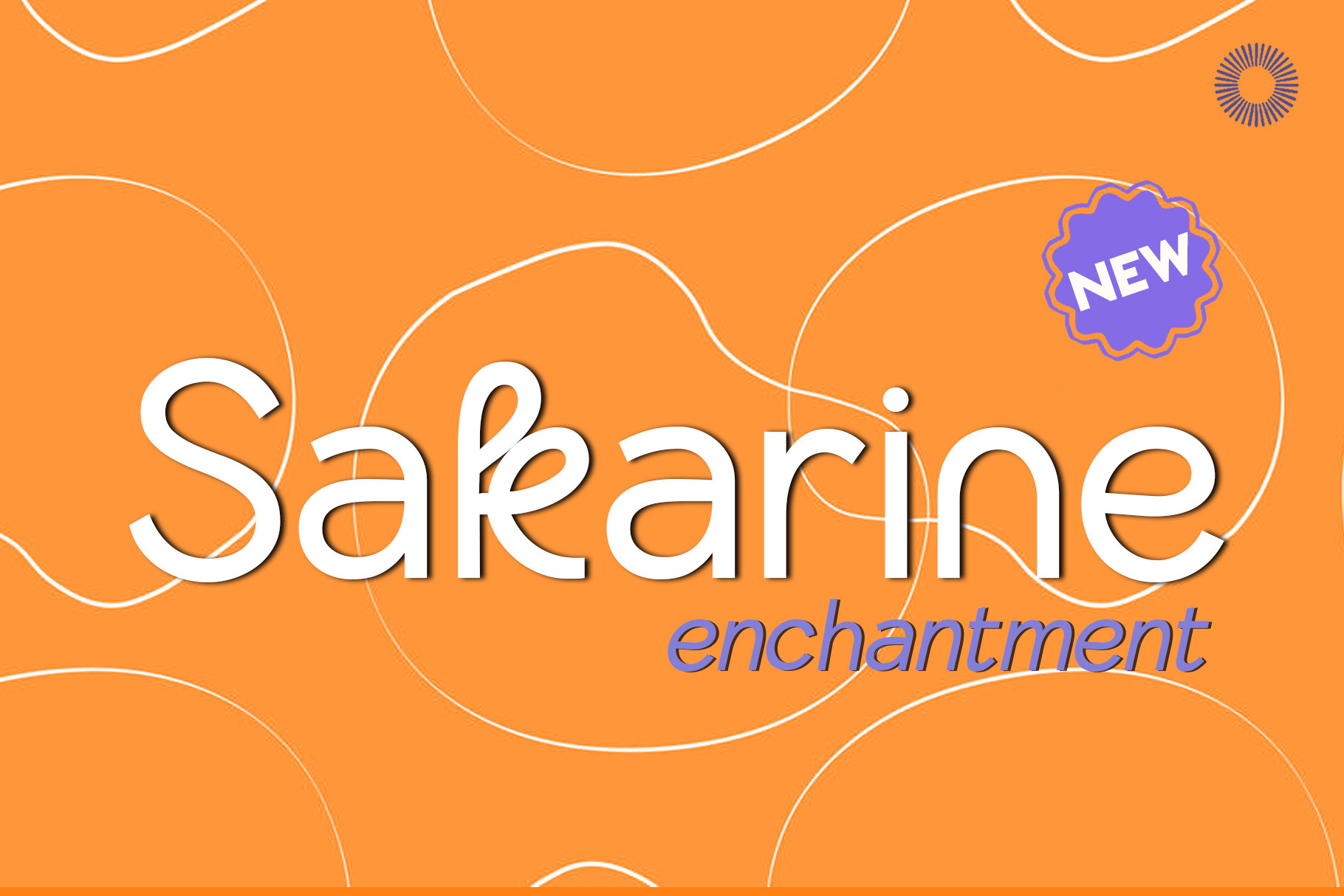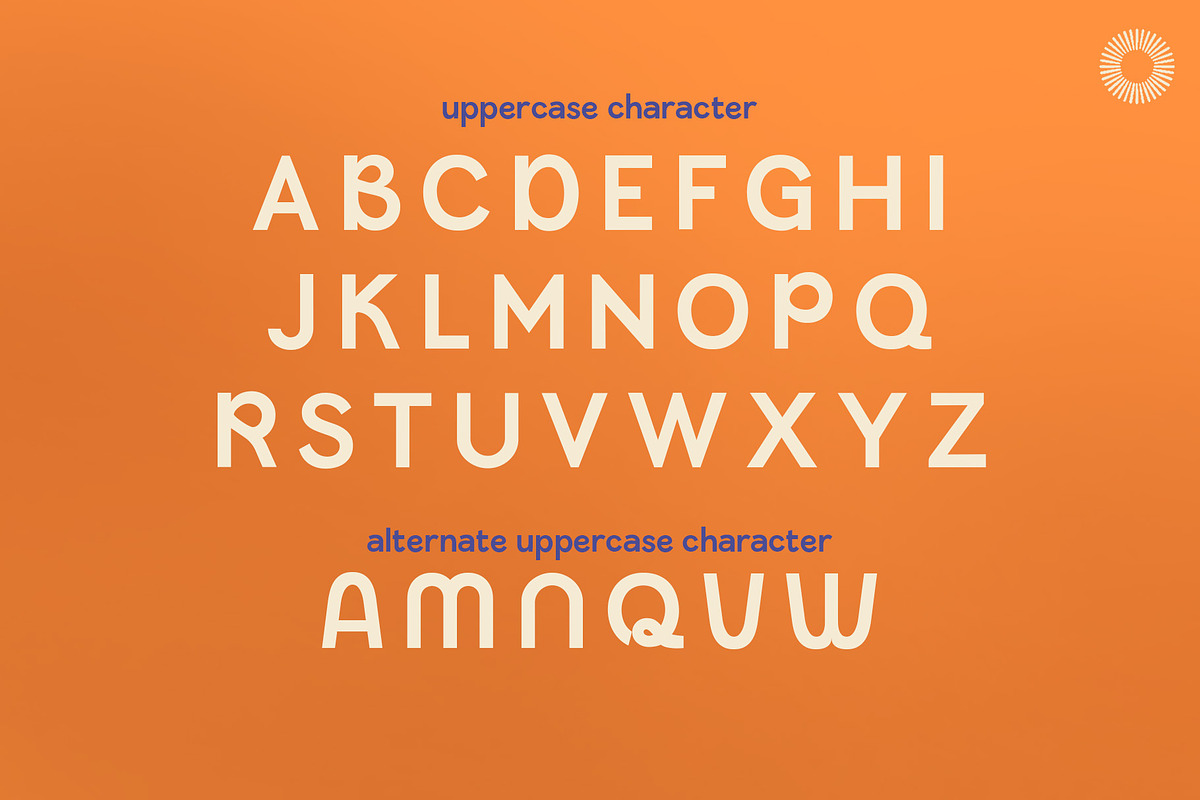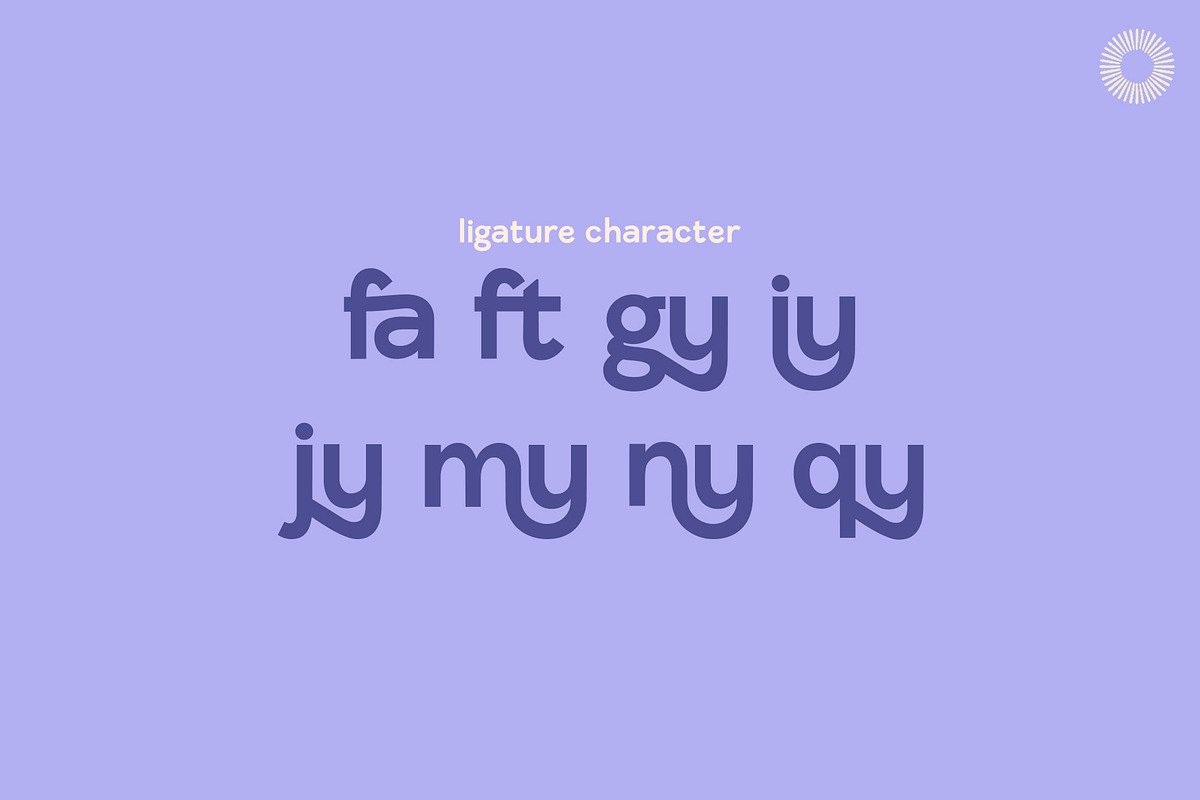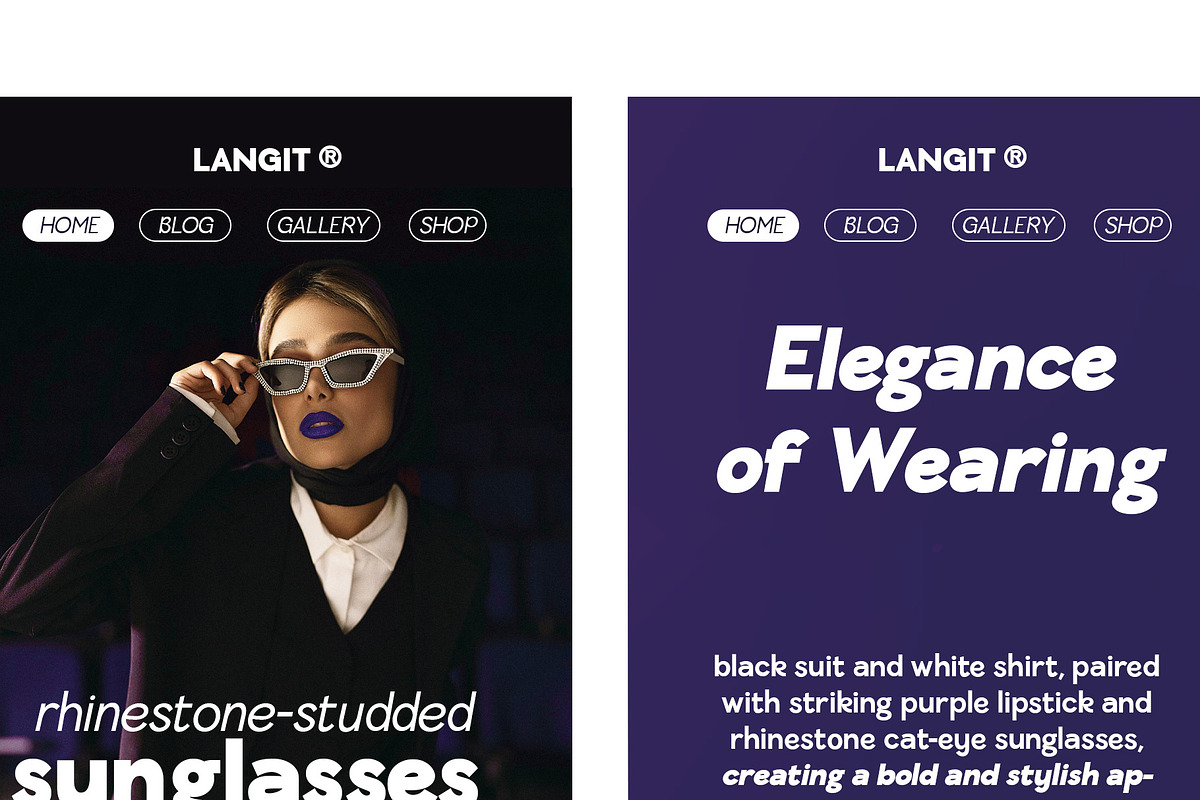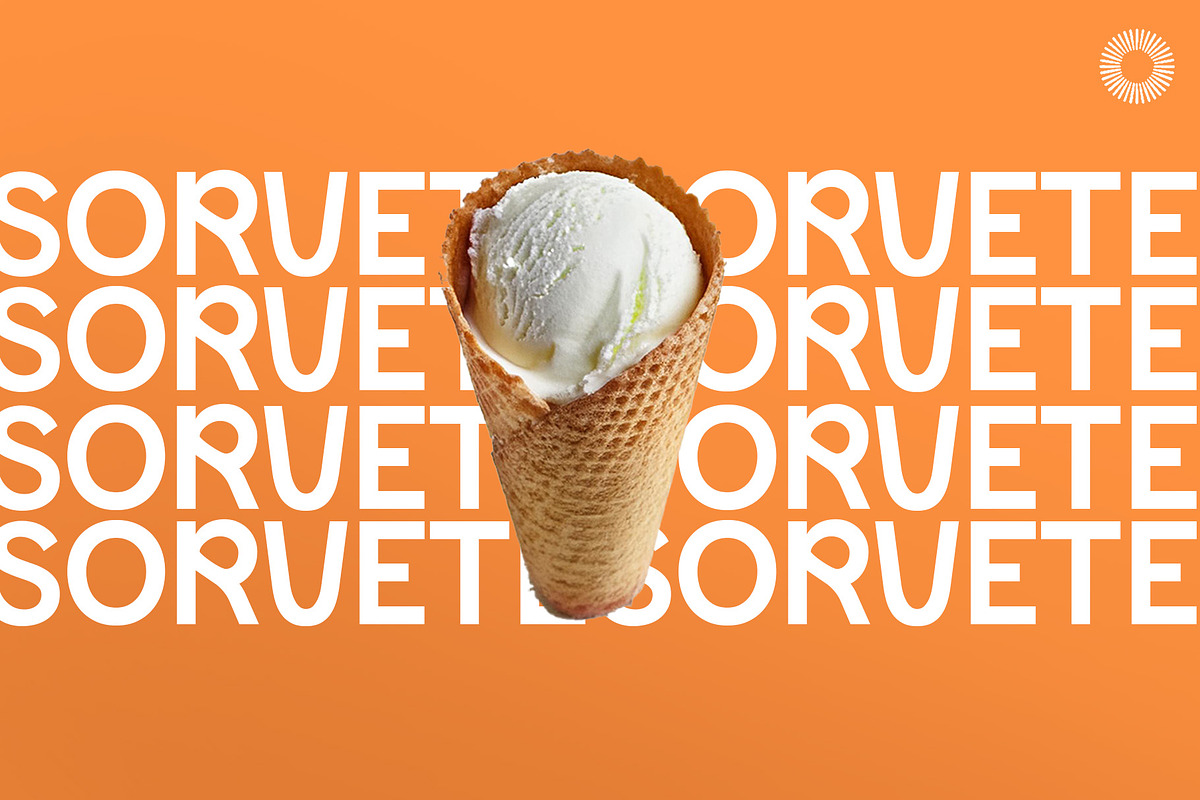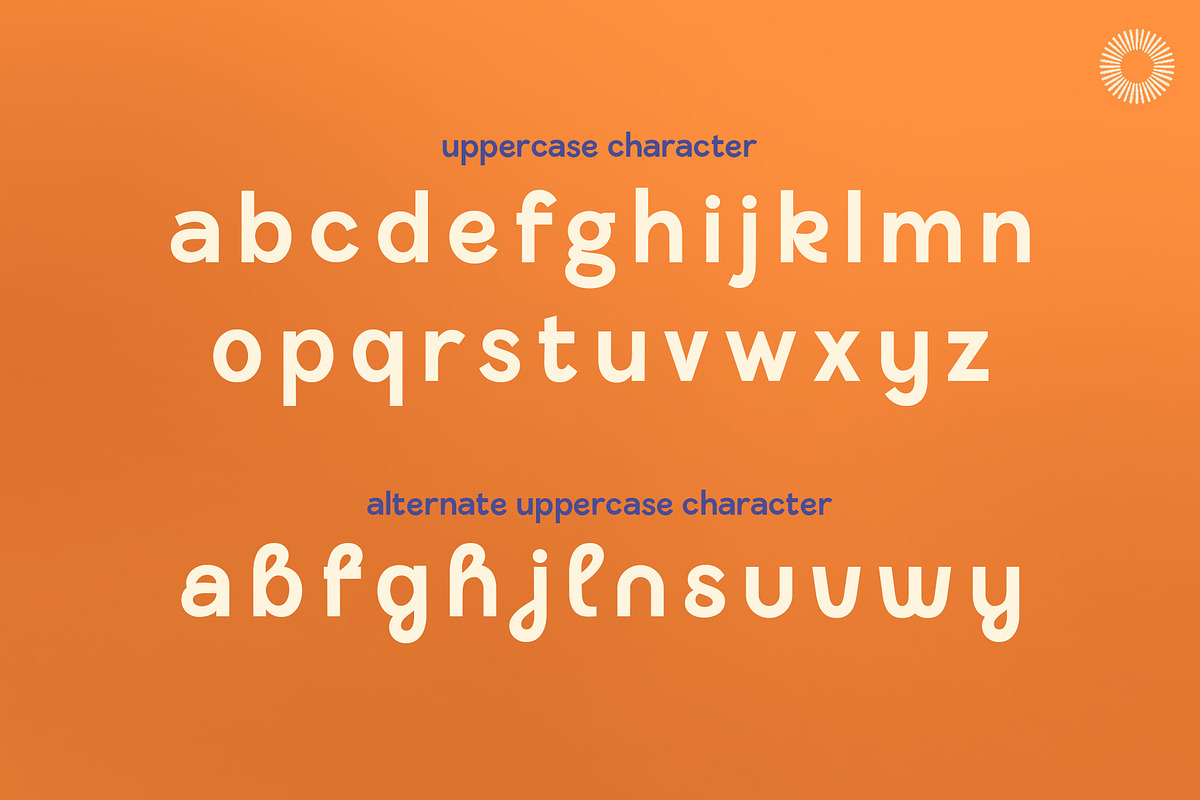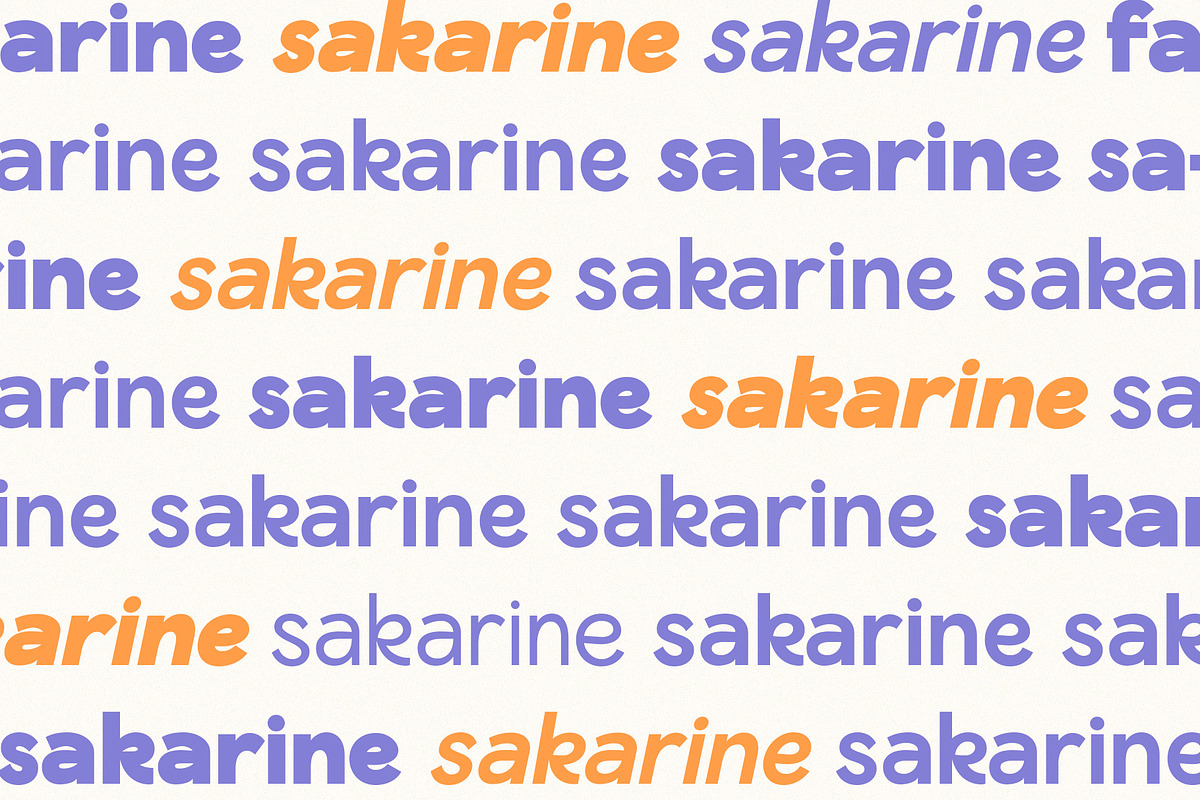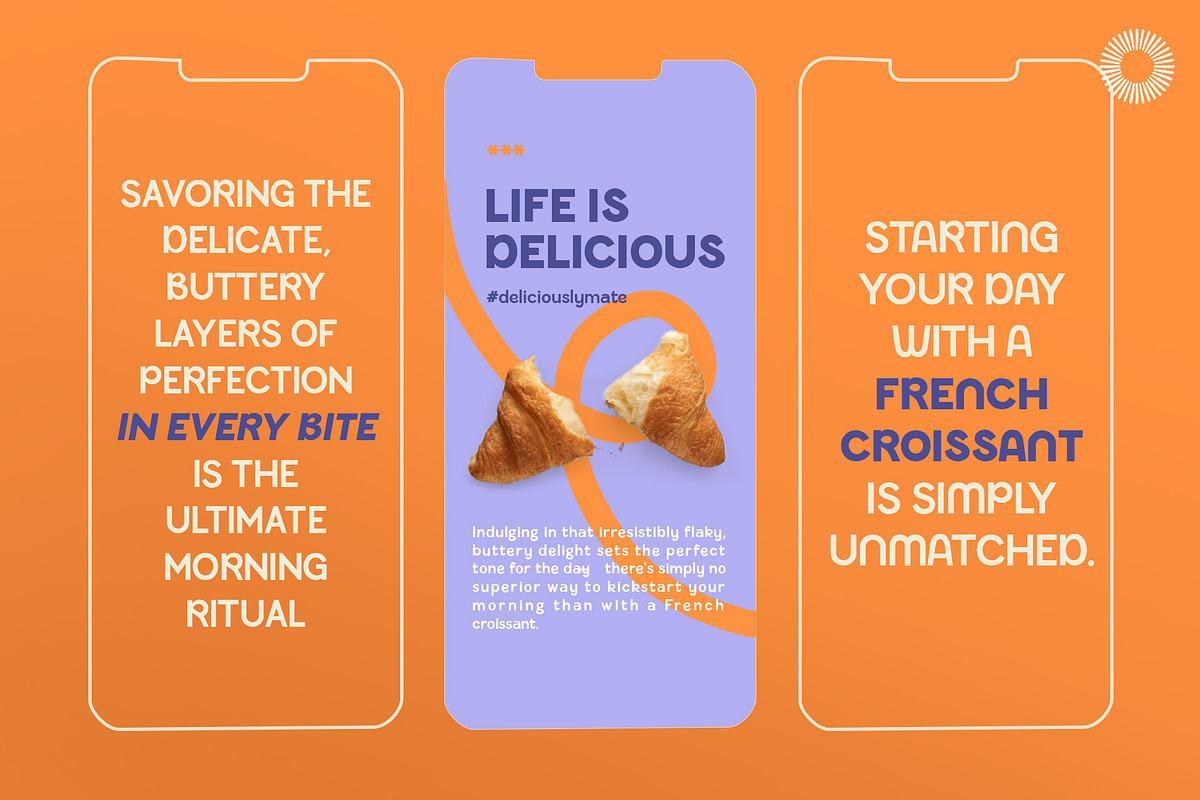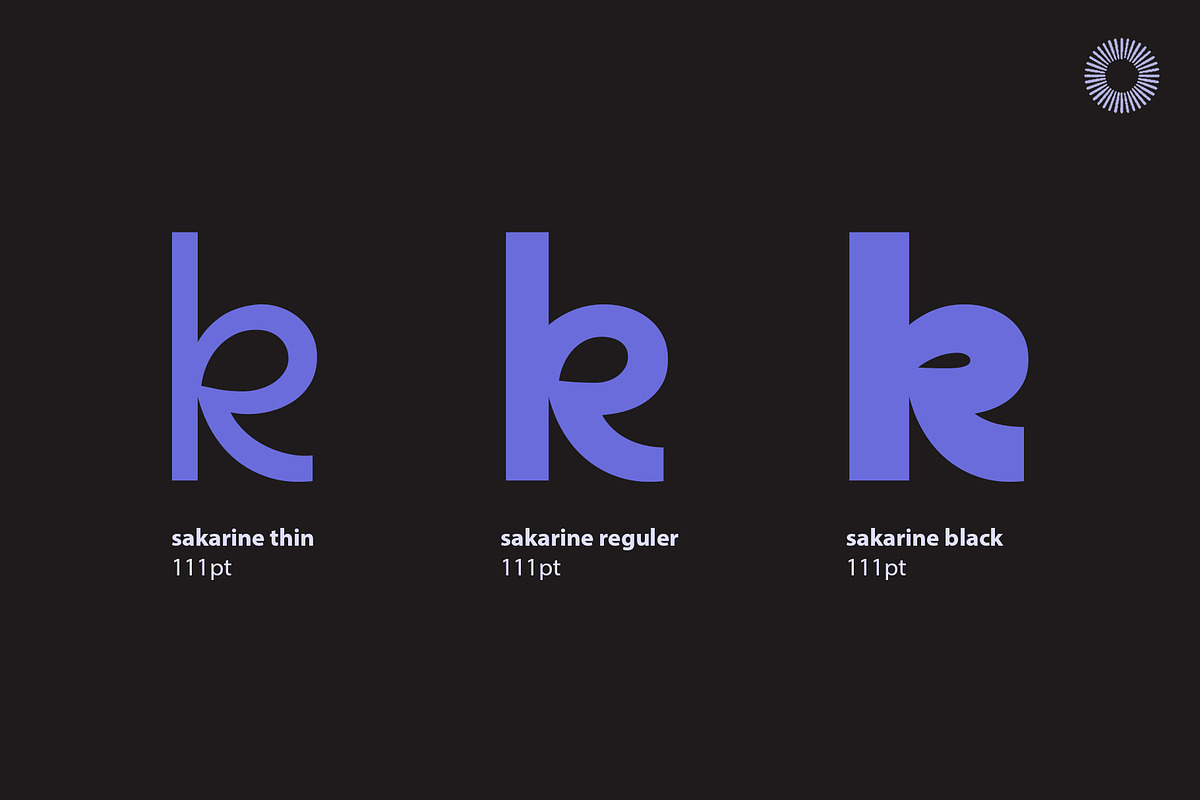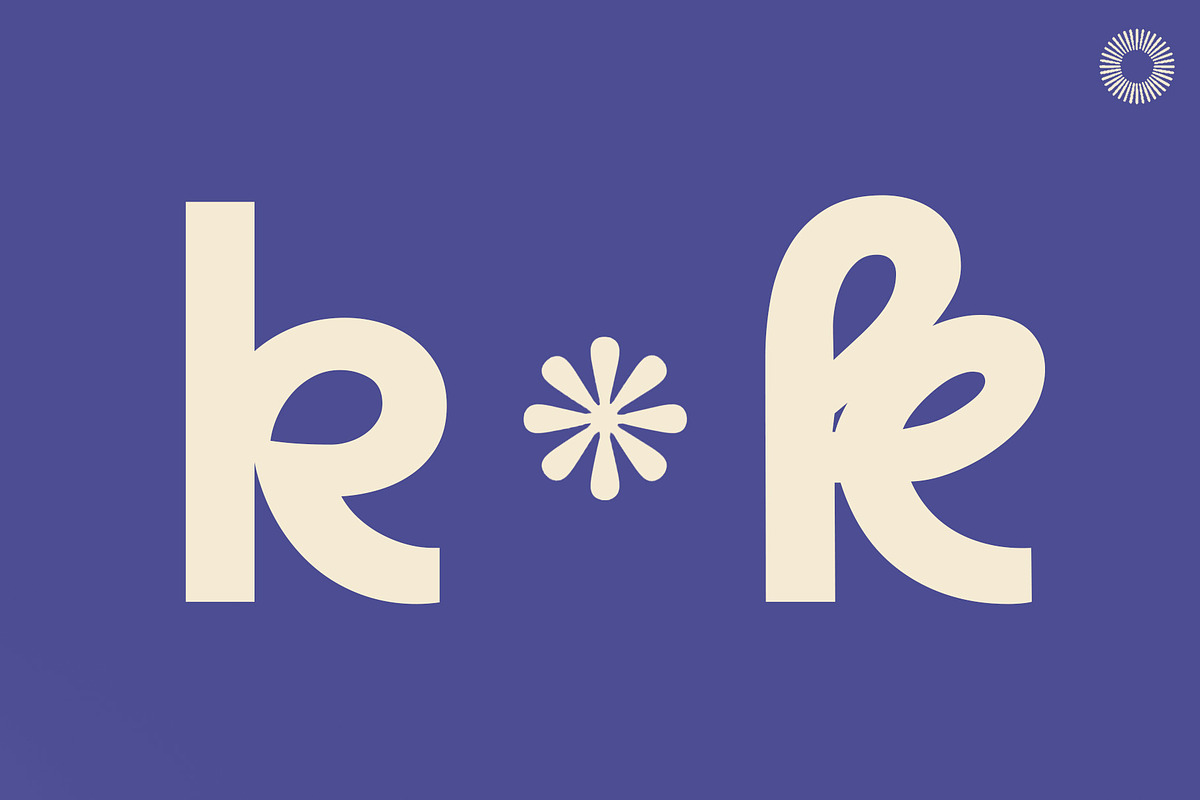
Sakarine typeface - Sans Serif
Hi, this is "Sakarine" . It was designed in 2024 by Siela Mara for Setara Langit. Sakarine is a fresh, clean sans serif font. It embodies our creative journey: beginning with the aim of crafting a practical, readable, harmonious text typeface. Yet, inevitably, we found ourselves compelled to infuse it with bolder stylistic elements. Almost spontaneously.